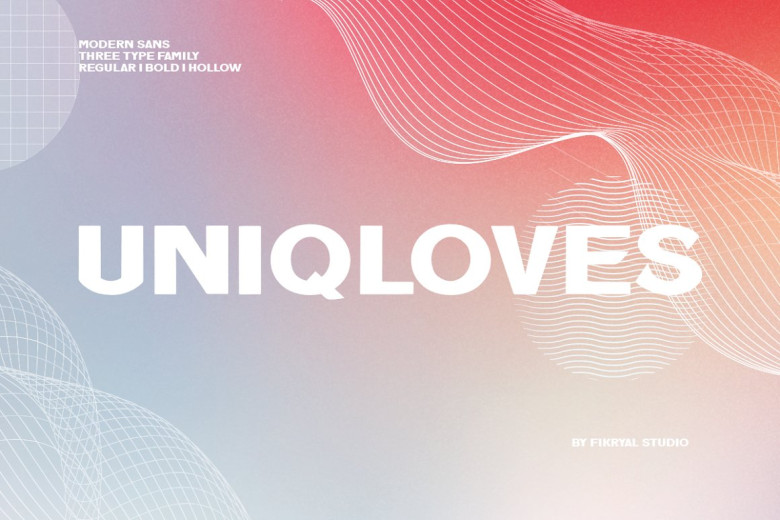
Uniqloves Font
Introducing Uniqloves – Modern Sans, which includes three typefaces, which are Regular, Bold, and Hollow. This font is perfect to apply in many of aspects such your branding, post, title, logos, social media, advertisements, product packaging, product designs, label, photography, watermark, special event, magazine, web design, etc.
Uniqloves Sans Serif Font